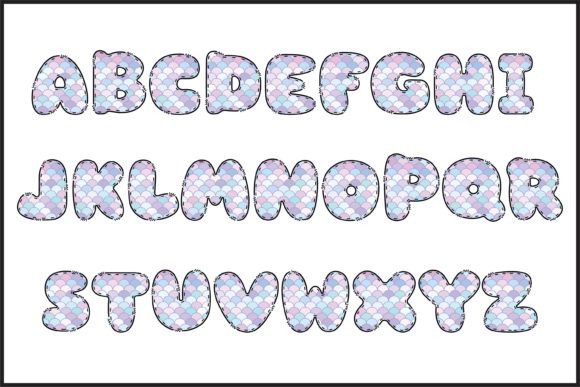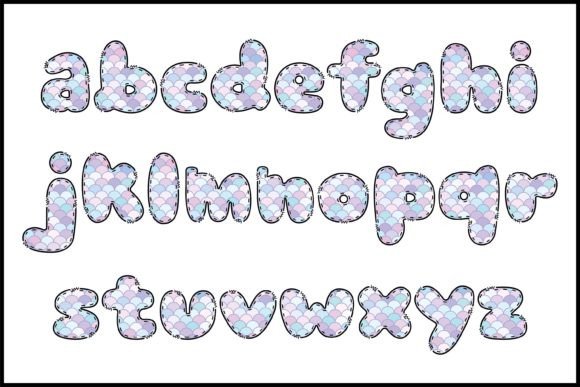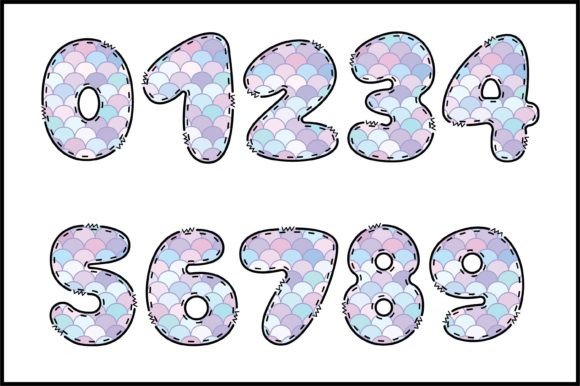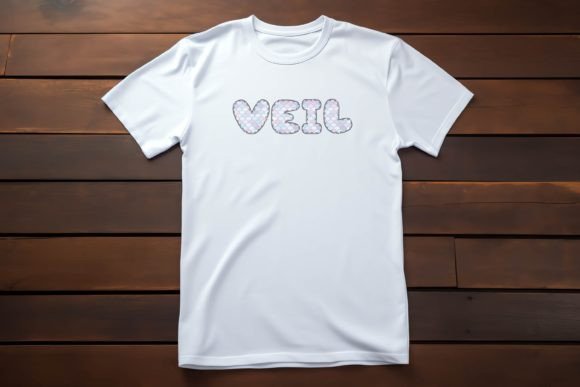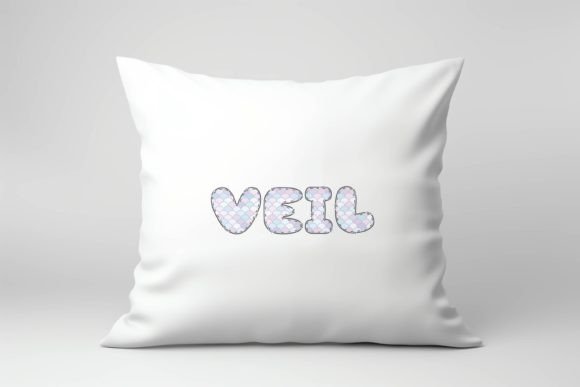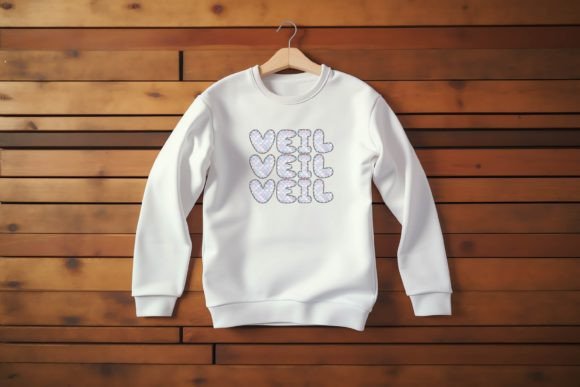
Introduction to Dream Mermaid Font
These fonts are often used in designs that aim to convey a playful or artistic feel, such as children’s books, posters, invitations, greeting cards, and more.
Key Features of Dream Mermaid Font
Why Choose Dream Mermaid Font?